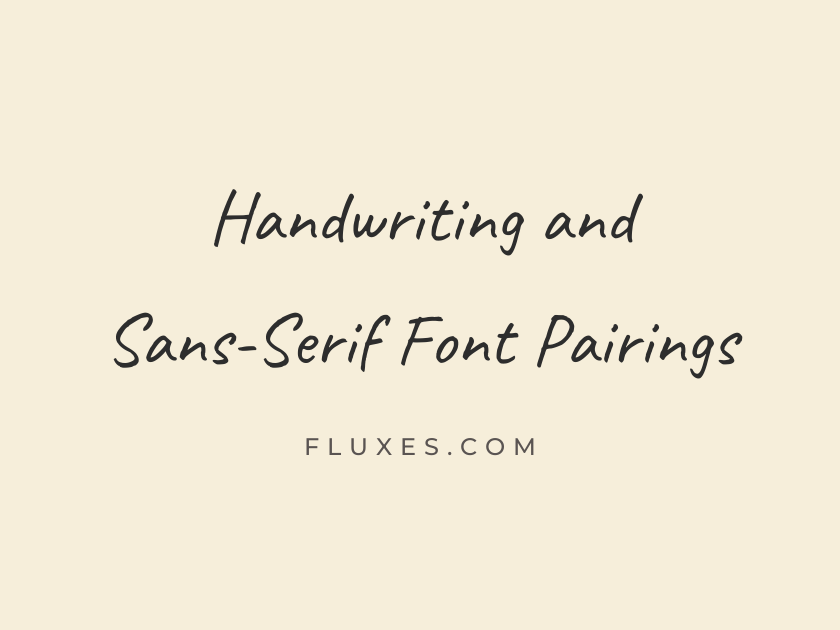
10 Best Handwriting and Sans-Serif Font Pairings
Handwriting fonts bring warmth, personality, and a human touch that sans-serifs alone cannot deliver, but they need a calm, highly legible partner to carry the actual reading. The best font pairings in this category lean on contrast: a lively, gestural display face up top, and a clean, neutral sans-serif doing the quiet work underneath. These Google Fonts combinations suit branding, invitations, blogs, and packaging where a personal touch matters.
Caveat + Poppins
A geometric sans keeps the casual script legible and grounded in body copy.
Caveat has an unpolished, pen-on-paper energy, while Poppins is built from clean circles and straight lines, so the two sit at opposite ends of the formality scale. That contrast is exactly what makes the pairing work: the script feels handwritten and personal, and the sans-serif keeps paragraphs crisp and easy to scan. It suits lifestyle blogs, greeting card copy, and packaging that wants a friendly voice without sacrificing readability.
Dancing Script + Nunito Sans
Rounded terminals in the sans echo the soft curves of the script above.
Both faces share rounded, soft-edged shapes, so even though one is a flowing script and the other a workhorse sans, they read as part of the same visual family. Dancing Script supplies romance and movement for headlines, and Nunito Sans keeps the supporting text warm rather than clinical. This combination works well for wedding stationery, boutique branding, and any project that wants gentleness without going overly ornate.
Permanent Marker + Work Sans
A neutral grotesque body balances the heavy, marker-drawn weight of the headline.
Permanent Marker is thick, uneven, and shouts for attention, so it needs a body font with no personality of its own to compete with. Work Sans is deliberately restrained, giving the marker headline room to dominate while the paragraph text stays quiet and functional. Expect this pairing on posters, streetwear branding, and youth-oriented campaigns that want energy up top and clarity below.
Pacifico + Karla
A slightly quirky humanist sans keeps the retro script feeling current.
Pacifico carries a mid-century surfboard-and-soda-shop nostalgia, and Karla’s understated humanist details keep that retro mood from tipping into pastiche. The x-heights are compatible enough that the body text never feels like an afterthought next to the bouncy script. This is a natural fit for cafes, ice cream shops, and small-batch food branding.
Shadows Into Light + Lato
A warm, humanist sans carries longer passages with none of the script's informality.
Shadows Into Light reads like a quick note scrawled in a notebook margin, which makes it well suited to personal blogs and journal-style content. Lato’s slightly rounded letterforms and generous spacing keep long paragraphs comfortable, so the informality stays confined to headlines where it belongs. The pair feels approachable without becoming cluttered.
Sacramento + Montserrat
Geometric precision in the sans offsets the delicate, thin strokes of the script.
Sacramento is thin, elegant, and monoline, so it needs a body font with enough structure to anchor the page, and Montserrat’s geometric confidence does exactly that. The contrast in weight and formality gives invitations and stationery a sense of occasion without feeling fussy. This pairing is a favorite for weddings, save-the-dates, and upscale event branding.
Kalam + Mulish
A minimal, low-contrast sans keeps instructional text calm and easy to follow.
Kalam has natural stroke variation reminiscent of a felt-tip pen, giving it just enough character for headings without becoming distracting. Mulish stays out of the way entirely, which is exactly what long-form instructional or educational copy needs beneath a friendly headline. Together they suit worksheets, tutoring brands, and children’s learning materials.
Homemade Apple + DM Sans
A tidy modern sans grounds the loose, inky quality of the handwritten heading.
Homemade Apple looks like it was written with a ballpoint pen pressed a little too hard, full of ink blots and inconsistent pressure, so it carries strong emotional warmth. DM Sans is even, modern, and slightly narrow, which keeps that warmth from overwhelming the page once readers move into body copy. The combination fits journaling apps, handwritten-style letters, and personal branding that wants sincerity.
Marck Script + Rubik
Rounded geometric letterforms in the sans mirror the script's smooth, continuous flow.
Marck Script has a calligraphic continuity, each letter flowing into the next, and Rubik’s slightly rounded corners pick up on that softness without trying to imitate it. The shared sense of ease makes the pairing feel cohesive rather than accidental. It works nicely for greeting cards, social graphics, and celebratory event branding.
Tips for pairing handwriting and sans-serif fonts
Keep handwriting fonts for short bursts: headlines, quotes, or signatures, and let the sans-serif carry any paragraph longer than a sentence or two.
Match the mood before the shape; a delicate script wants a light, precise sans, while a bold marker script wants a heavier, plainer one.
Test both fonts at the sizes they will actually appear at, since some handwriting styles that look charming large can turn illegible when shrunk into captions or labels.